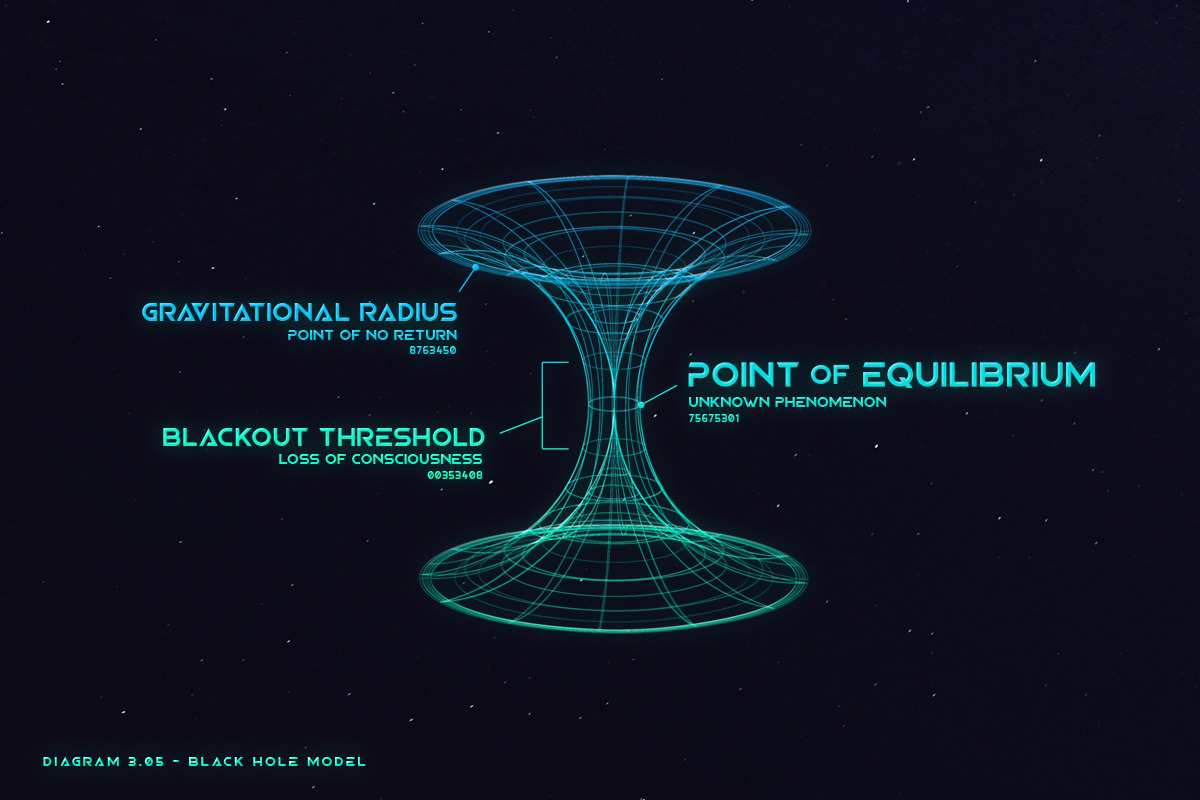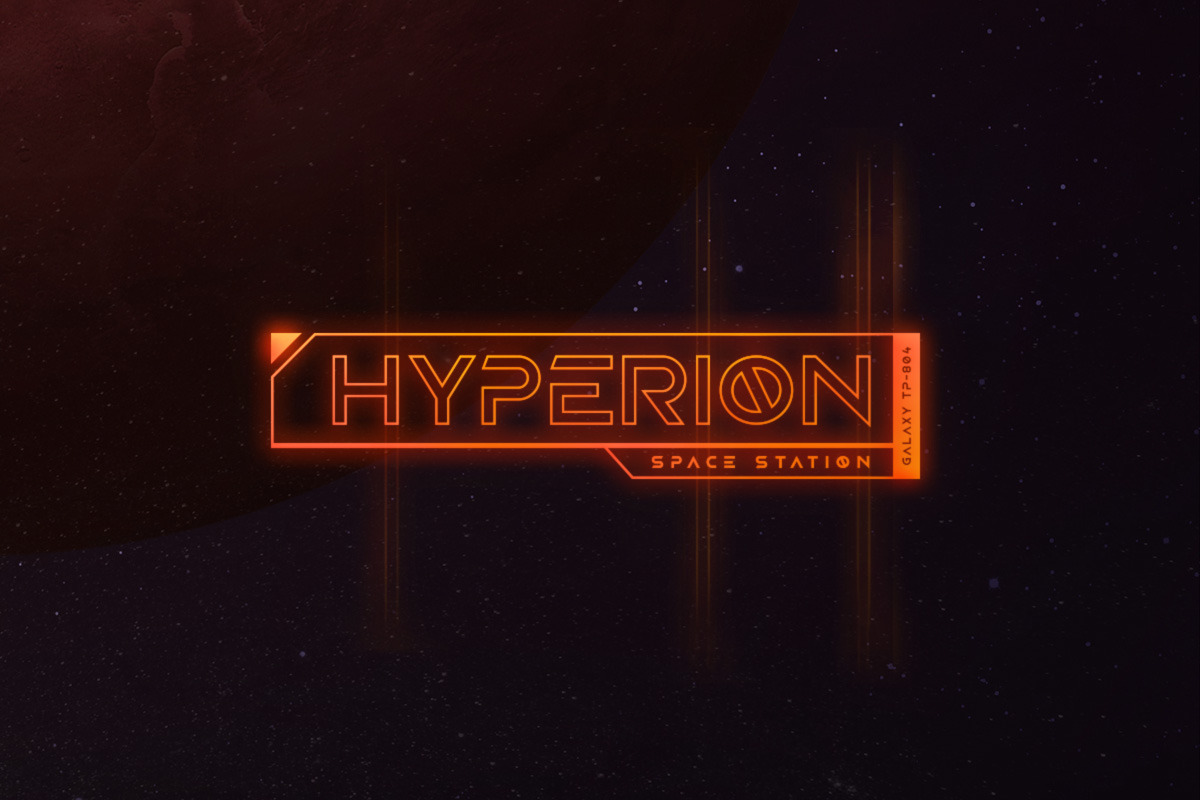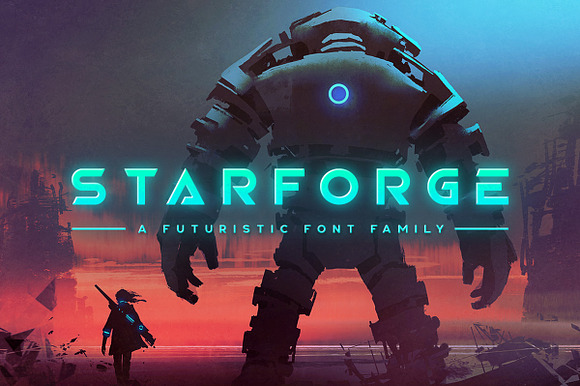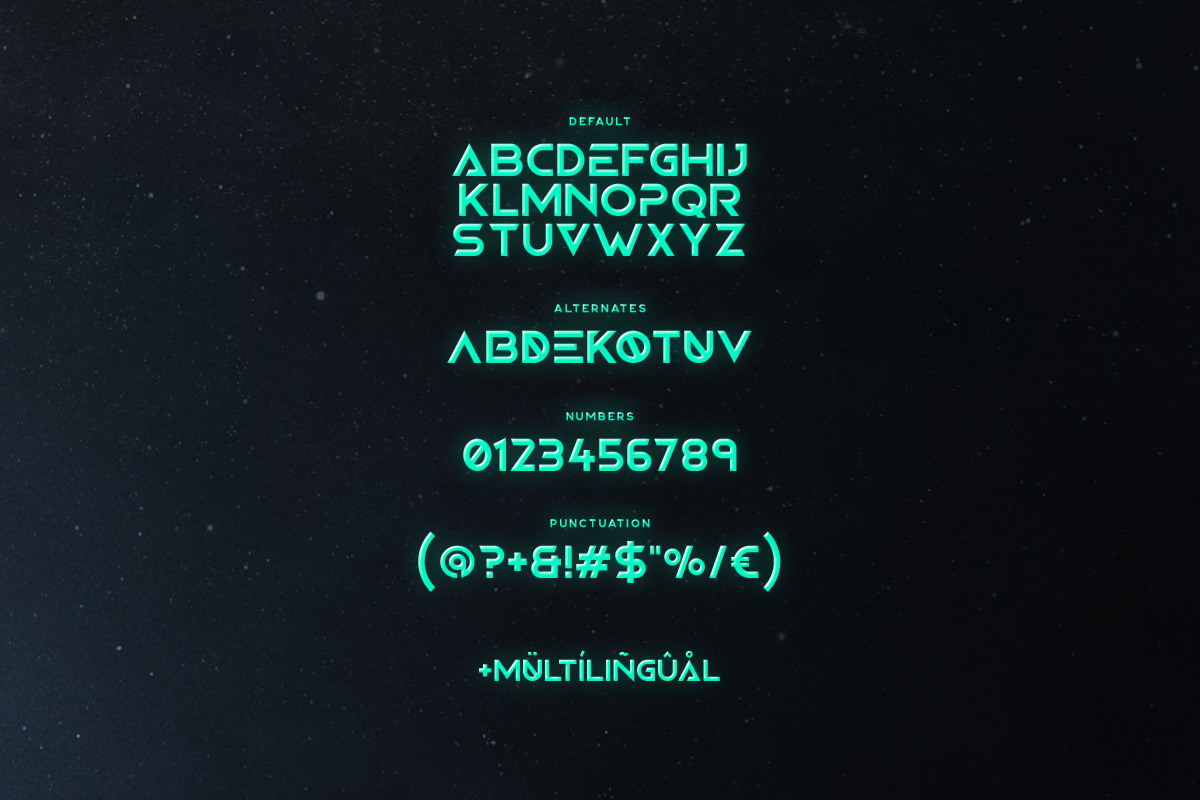
Starforge Typeface
Starforge is a sci-fi themed font family in regular and outlined styles. It includes uppercase multilingual letters, alternate letter options (toggled via caps lock), numbers and punctuation.
- Starforge Regular
- Starforge Outline